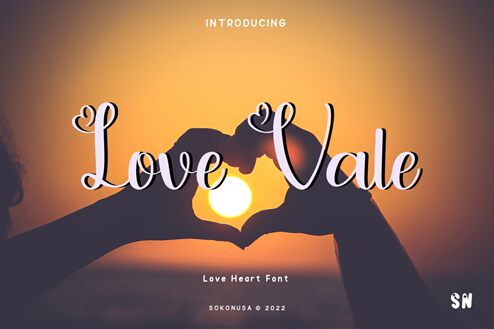
Love Vale
Love Vale font by Soko Nusa captures a romantic mood with decorative flourishes and a modern calligraphy influence. The whimsical vibe this free calligraphy font transfers makes it extremely elegant, sweet, and delicate; all reasons why designers find it so attractive in certain projects.
One such project when using Love Vale is suitable is designing invitations for various social functions like weddings and birthday parties. Use also for posters, packaging design, apparel design, business cards, magazines, digital marketing content, or websites.